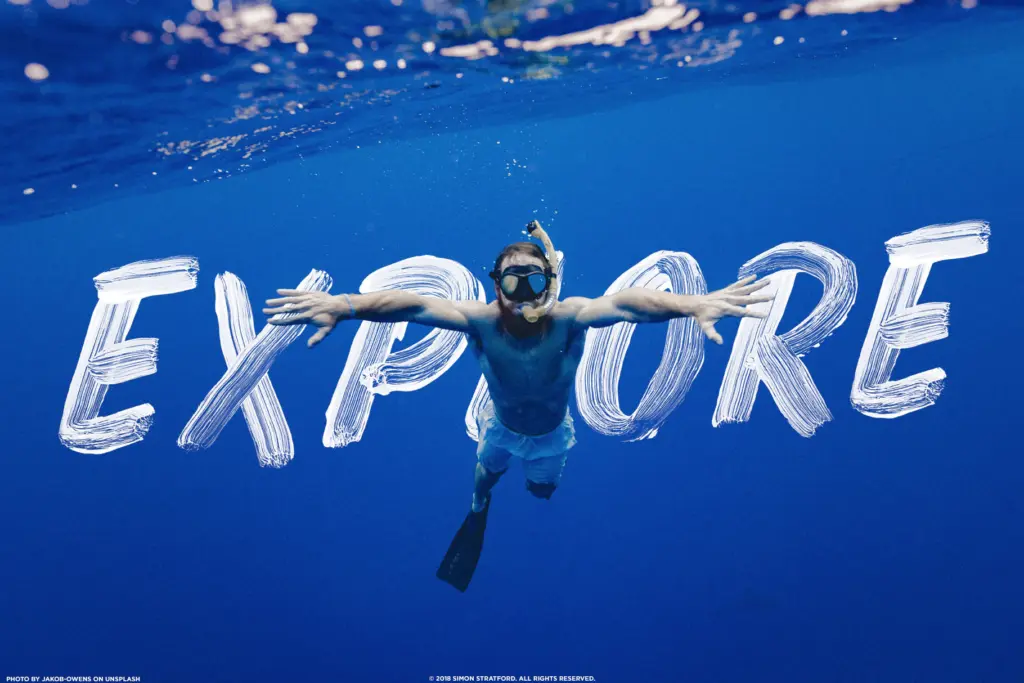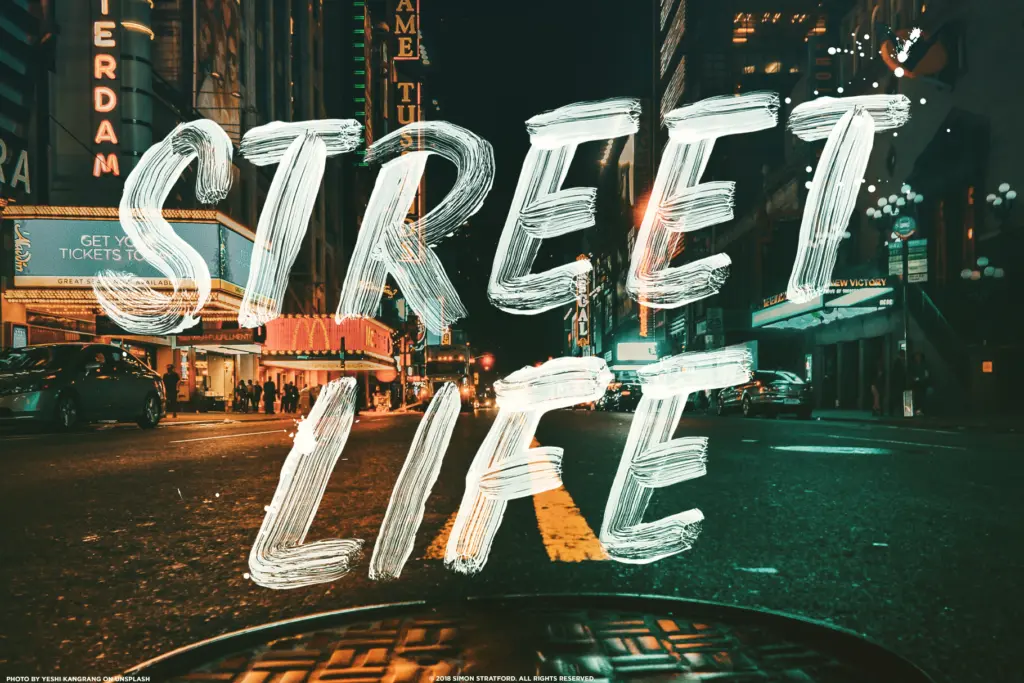
Fierce is a brush script built from actual paint rather than a vector approximation of one. The designer worked with acrylic on transparency film, and that process shows in the final letterforms: bristle marks, dry patches, uneven paint density, the odd fleck where the brush skipped. It reads as handmade because it is handmade, at least at the source stage, and that gives it a texture no amount of vector distressing quite replicates.
The letters themselves are big, heavy and a little unruly. Strokes swing wide, terminals fray rather than taper cleanly, and the overall attitude sits closer to a spray-painted gig poster than a wedding invite. There’s a punk streak to it — not in a costume sense, more in the way the forms refuse to sit quietly on the baseline. If you’ve used cleaner brush scripts before, this one will feel deliberately rougher, and that roughness is the entire point.
Because Fierce is built as an OpenType-SVG font, each glyph carries its own bitmap-level paint texture rather than being reduced to a flat vector shape. That’s what preserves the acrylic detail — you can genuinely see individual bristle strokes at large sizes. The trade-off is compatibility: SVG-format fonts render properly only in a limited set of applications, chiefly recent Mac versions of Photoshop and Illustrator and a short list of other native Mac apps. On Windows, expect it to work in current Photoshop but not as a system font elsewhere, and InDesign support is incomplete enough that it’s not worth fighting with there. Anyone picking this up needs to check their actual working app before committing a layout to it, not after.
Within its supported environments the set behaves as a standard brush script — same case and rhythm you’d expect from a hand-lettered display face, with the paint texture doing the work rather than elaborate alternates or swash sets. It’s not a font you typeset paragraphs in; it’s built for short bursts of type at large sizes, where the acrylic grain actually reads.
This is a headline and lockup font, not a body font. It suits posters, packaging fronts, gig flyers, streetwear branding, sneaker drops, anything chasing an urban, slightly rebellious tone. A single word or short phrase set large in Fierce carries real presence — the paint texture gives it weight that a smooth vector script can’t match. Set it small and that texture turns to noise, so keep it for display sizes only.
Given the platform restrictions, it’s best suited to designers working primarily on Mac in Photoshop or Illustrator, producing static artwork rather than dynamic or cross-platform layouts. Anyone building a brand system that needs the same type file to work identically across Windows, InDesign, web, and Mac should treat this as a supporting asset for hero artwork rather than a core brand typeface, and pair it with a conventional font for anything that needs to travel further than a poster.
- Real acrylic paint texture with visible bristle strokes rather than a simulated vector effect
- Strong presence at large display sizes for posters, packaging fronts and headlines
- Distinct urban, punk-leaning character that stands apart from cleaner brush scripts
- OpenType-SVG format limits full functionality mostly to Mac Photoshop and Illustrator
- Not usable as a working font in InDesign and unreliable on Windows outside recent Photoshop
Fierce delivers genuine hand-painted texture that most brush scripts fake with filters, and at display sizes it has real presence. But its OpenType-SVG format means it only fully works on Mac, in a narrow set of apps, which limits who can actually deploy it. Treat it as a poster and packaging font for Mac-based workflows rather than a everyday brand typeface.